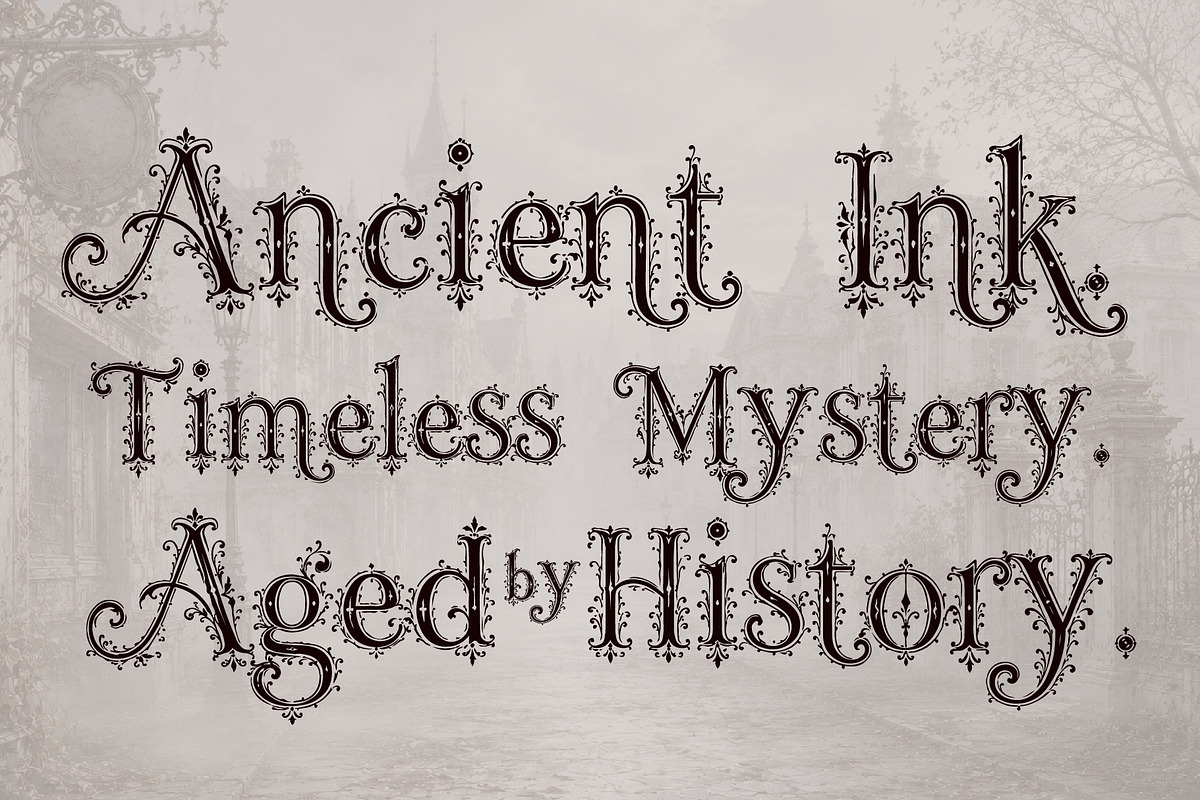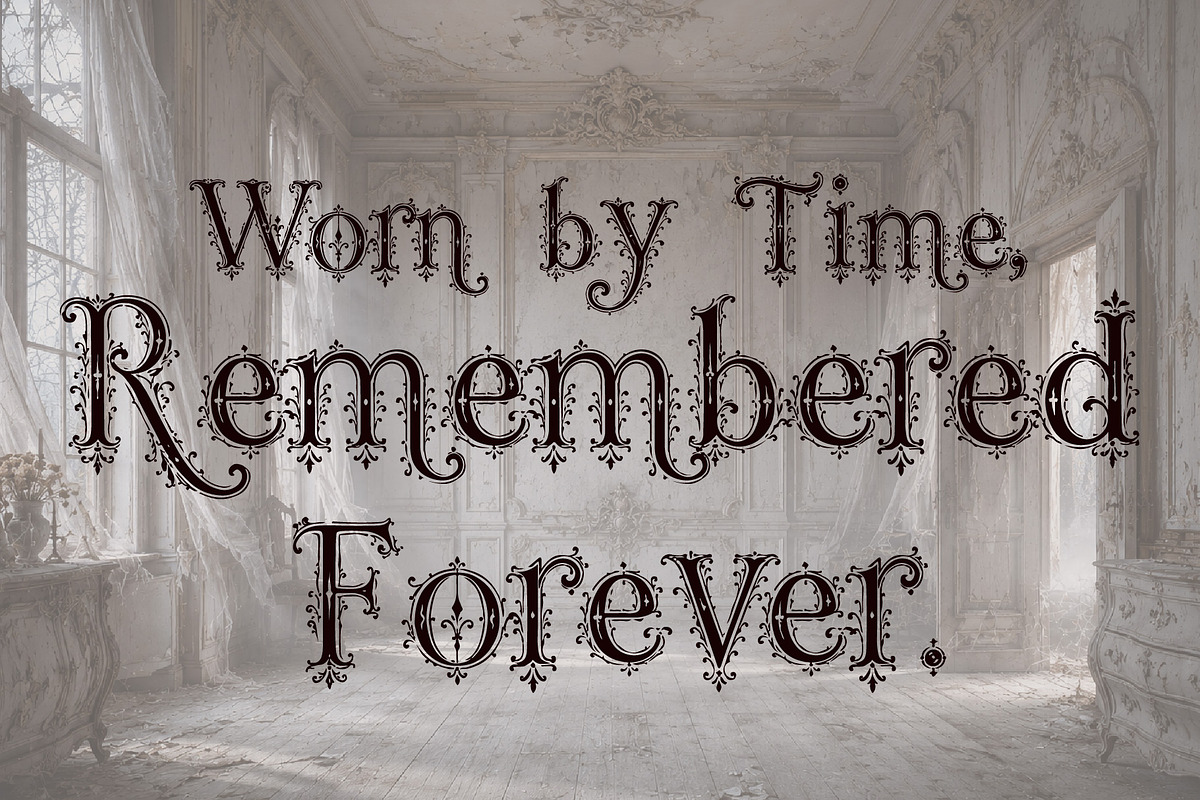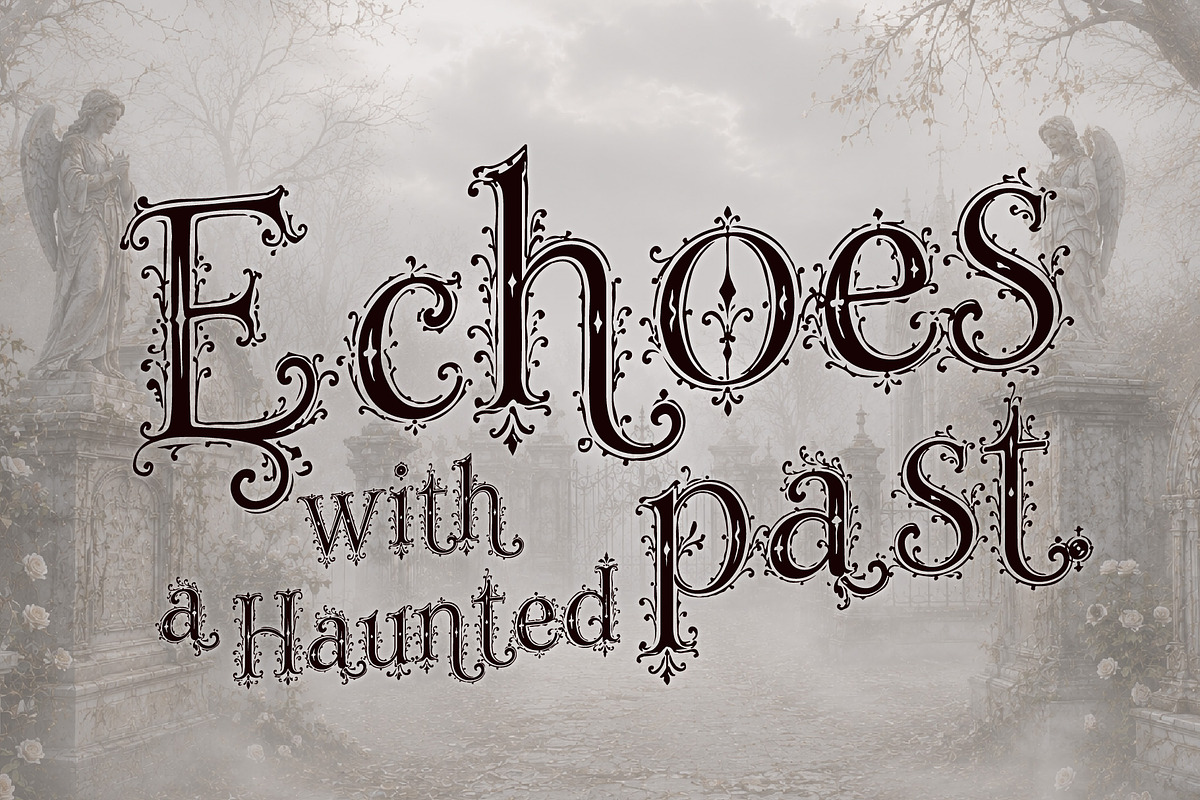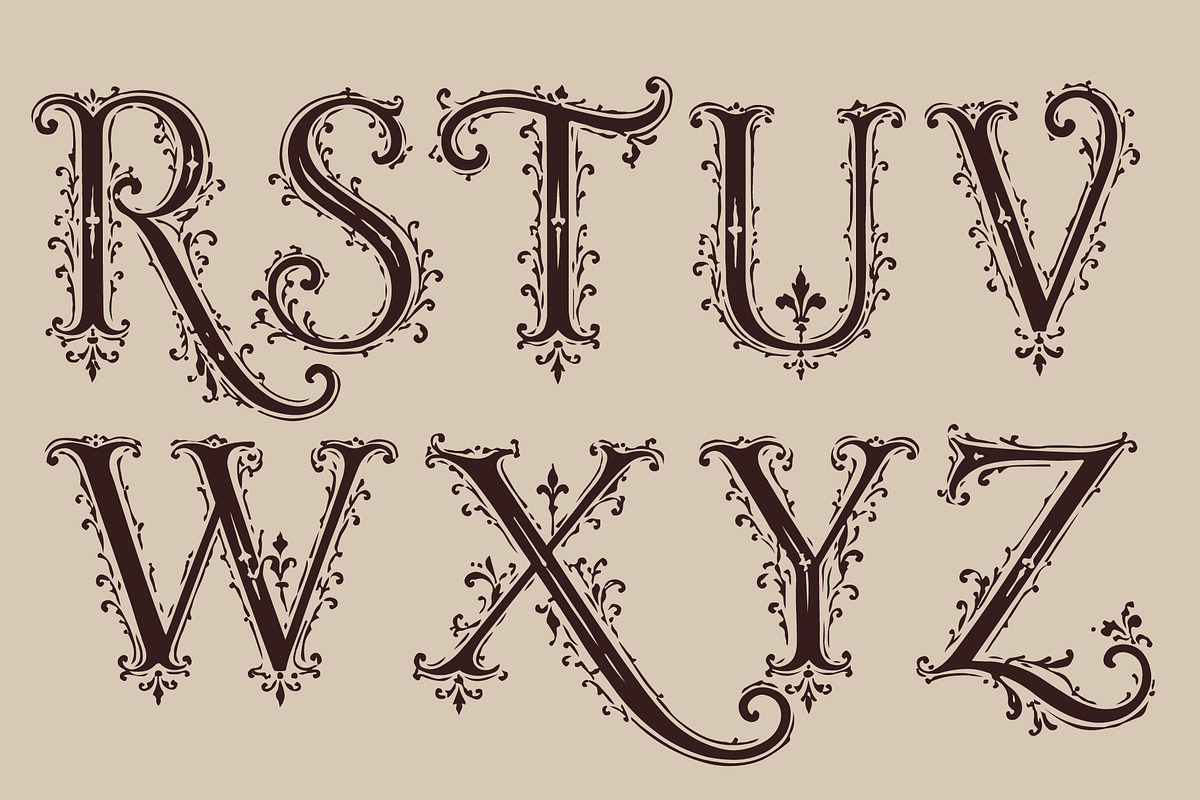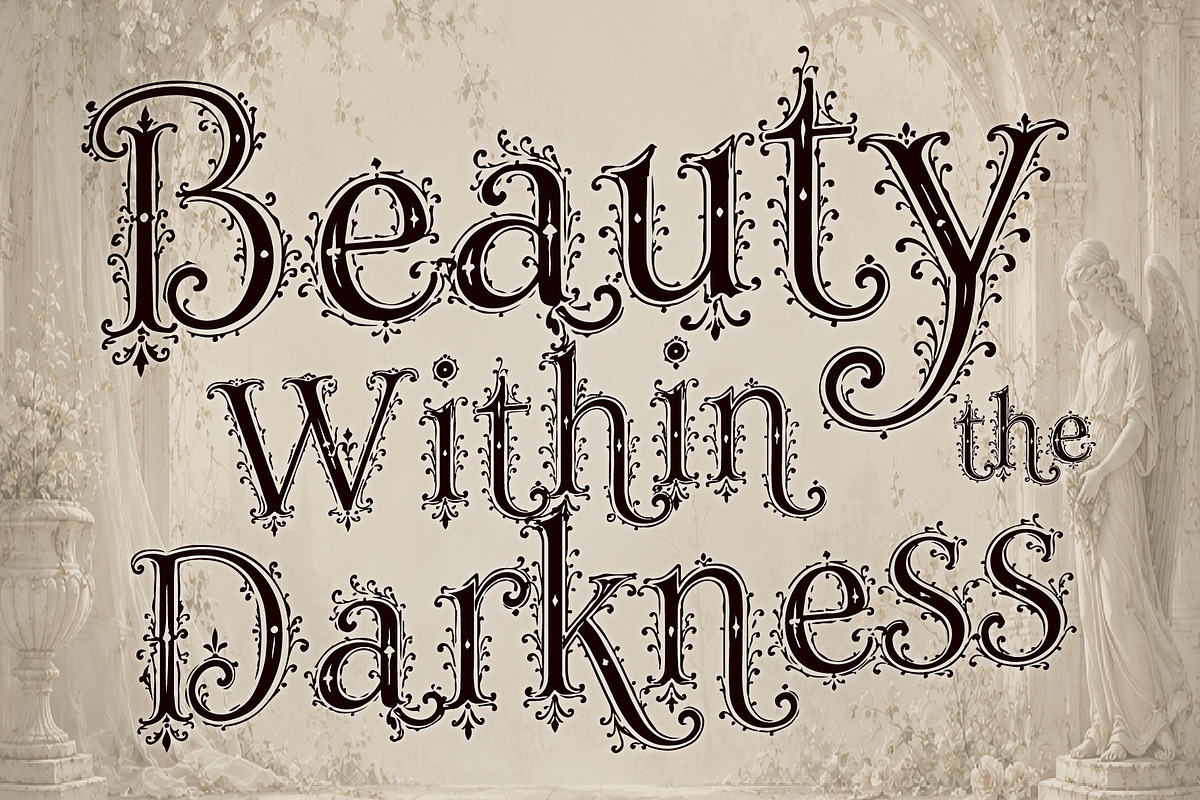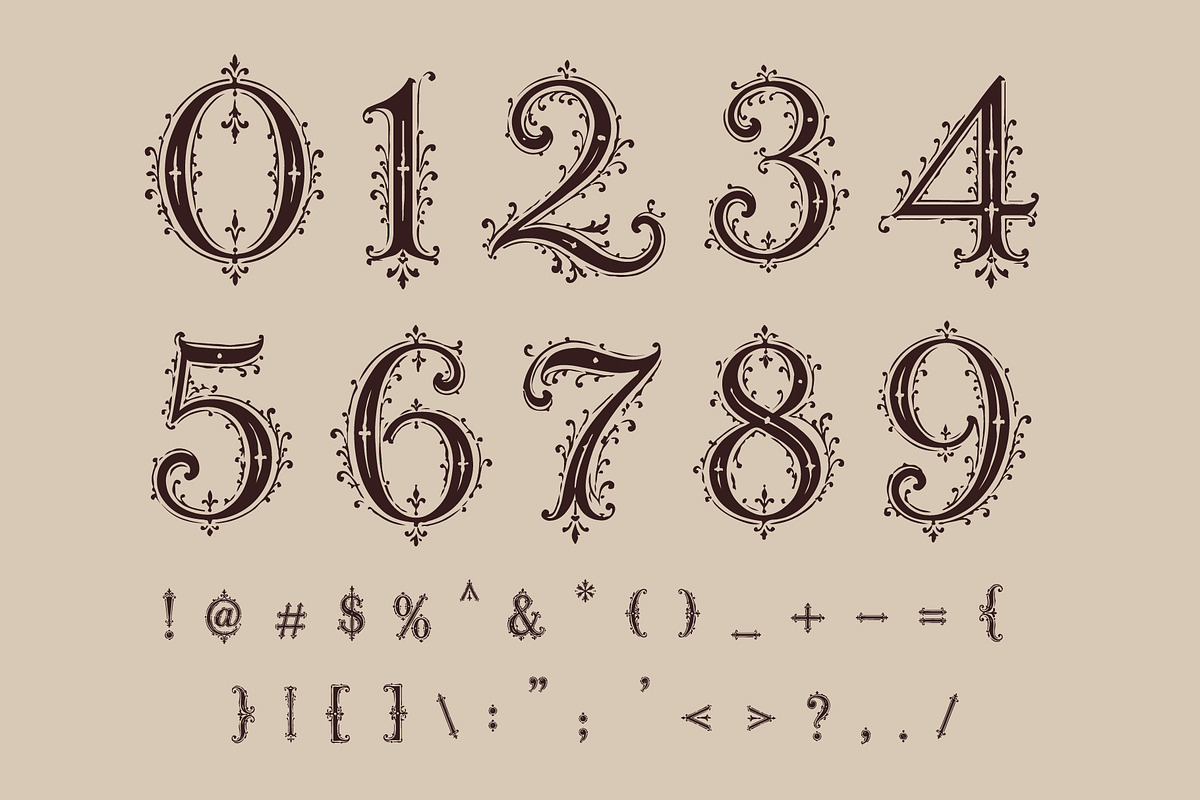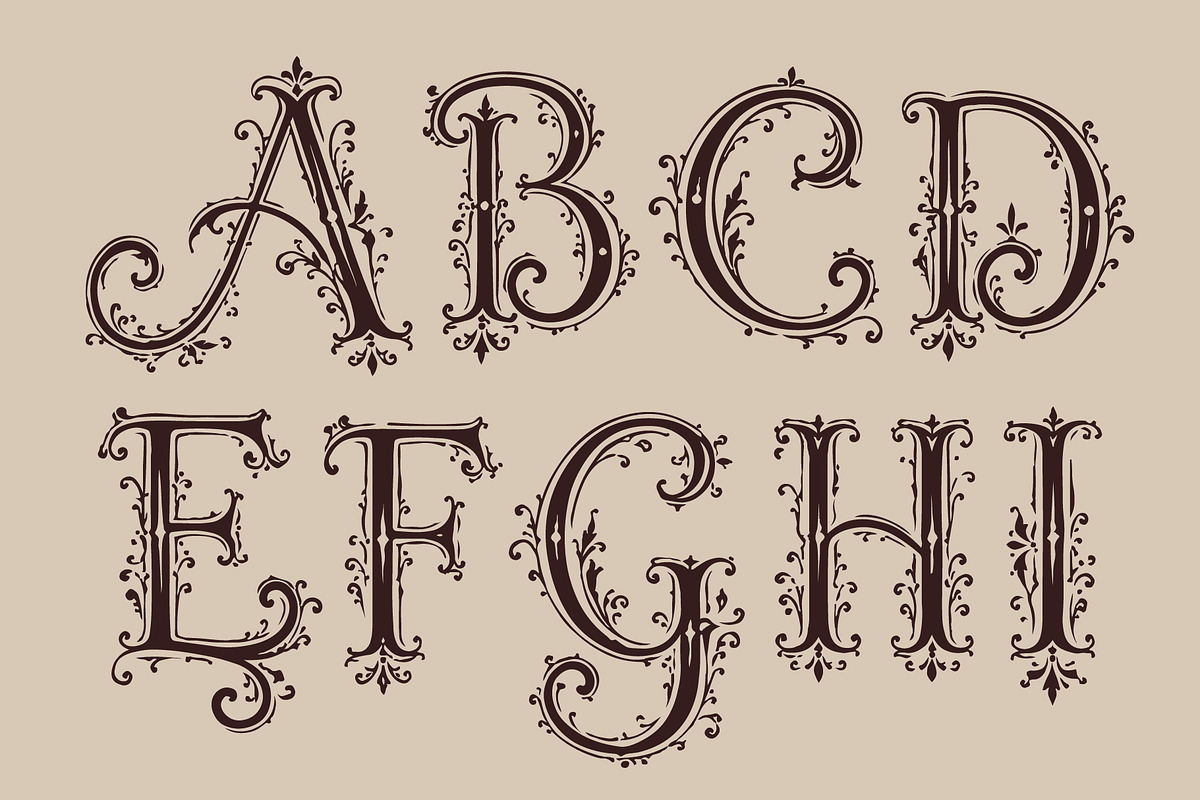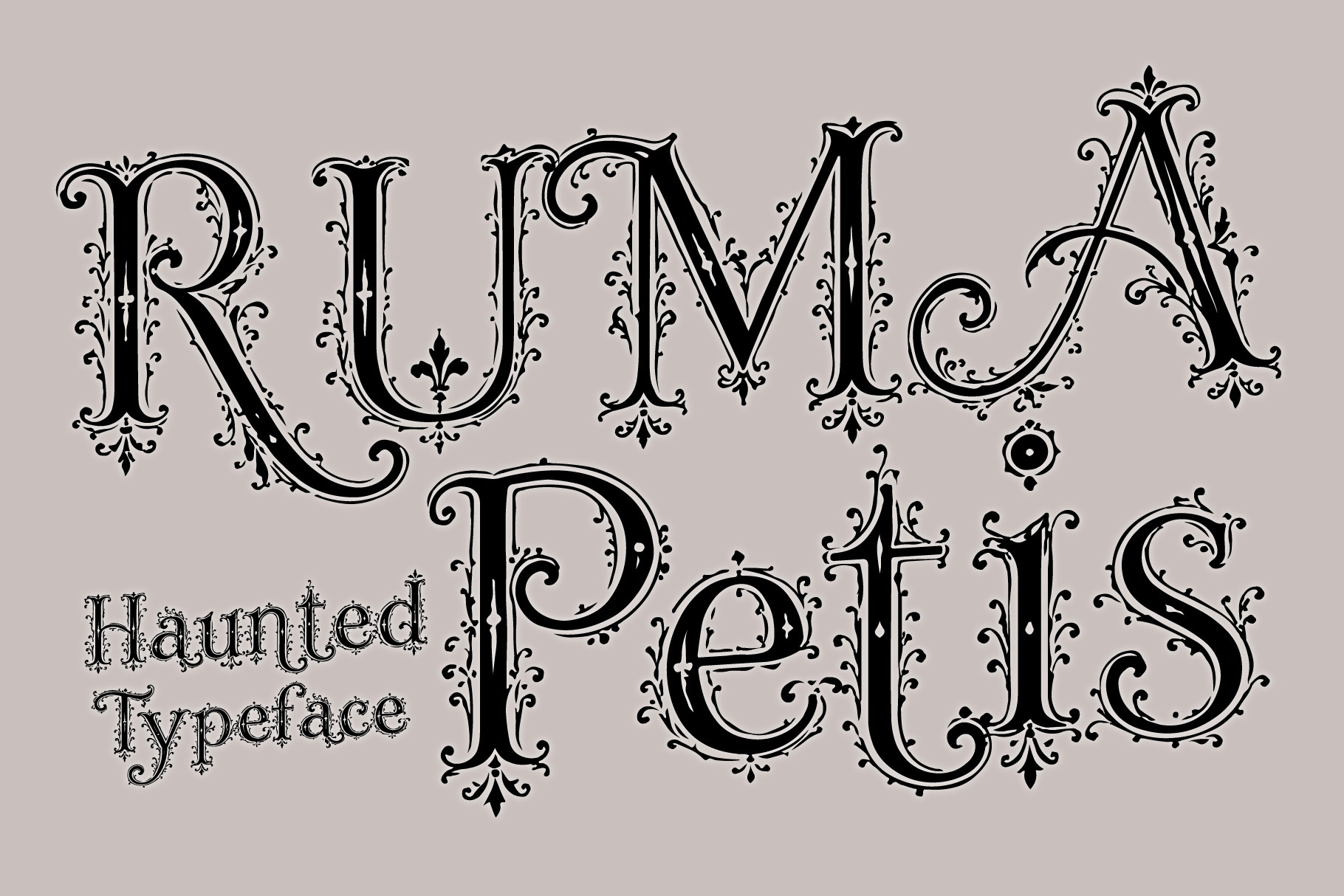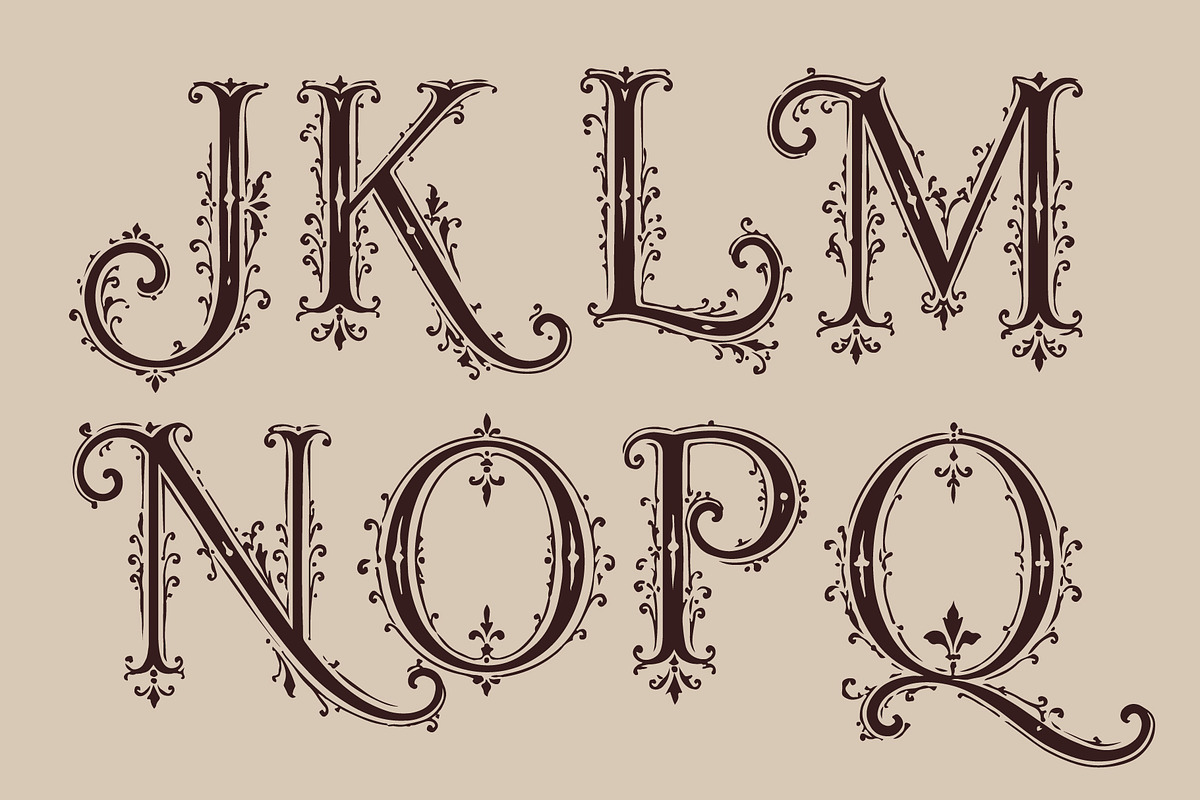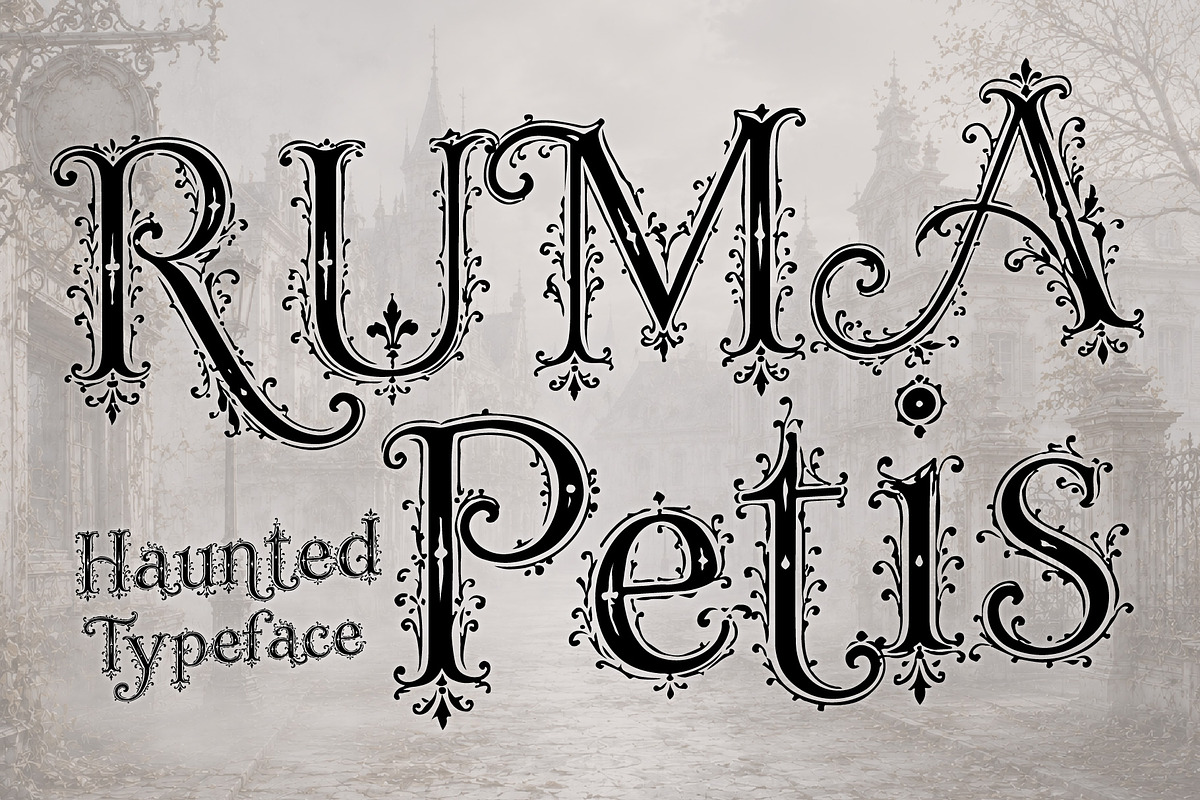
RumaPetis - Quiet Horror Typeface
RumaPetis - Rustic Elegance with a Dark Heart. is a handcrafted Victorian script typeface infused with intricate Baroque ornamentation and an aged, weathered character. Inspired by forgotten manuscripts, antique engravings, haunted estates, and centuries-old calligraphy, every letter carries the charm of a bygone era.
Its flowing strokes, dramatic flourishes, and distressed personality make RumaPetis ideal for projects that demand mystery, history, and timeless atmosphere. Whether you're creating gothic branding, horror book covers, vintage posters, occult artwork, Halloween designs, whiskey labels, tattoo inspired graphics, museum exhibitions, escape room branding, or dark fantasy titles, this typeface delivers an unmistakably old-world presence.
Designed to resemble authentic hand drawn lettering from the Victorian age, RolyalsBraoque blends classical elegance with a rustic soul, making every word feel as though it was lifted from the pages of a forgotten journal.